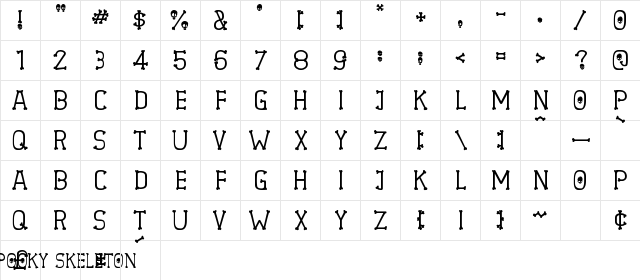
Spooky Skeleton Regular
| Designer | Joseph Dawson |
Design Context for Spooky Skeleton Typeface
Spooky Skeleton is a composed and adaptable typeface that performs quietly and consistently across a wide range of design contexts.